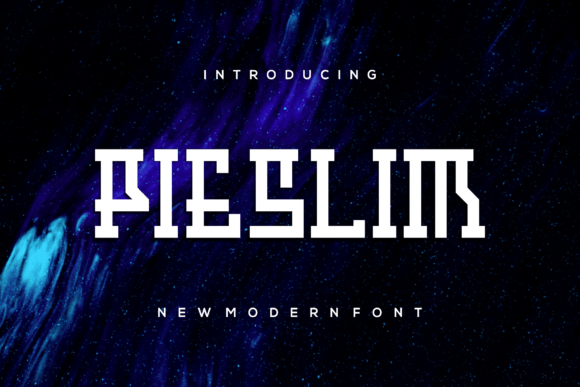
Prepare yourself to dive into the world of futuristic creation with Pieslim Font, the epitome of technological marvel. This display font is not just a collection of letters and symbols; it's a gateway to a universe where your designs transcend the ordinary and enter the realm of the extraordinary.
With its sleek, sharp lines and geometric precision, Pieslim Font is the perfect choice for those who seek to make a bold statement in the digital realm. Its bold strokes and confident angles are reminiscent of towering skyscrapers reaching for the heavens, evoking a sense of power and innovation.
Imagine your tech logo adorned with Pieslim Font, radiating an aura of sophistication and cutting-edge technology. Your audience will be mesmerized by the font's ability to convey a sense of progress, innovation, and boundless possibilities. Whether you're creating a website, designing a mobile app, or crafting social media graphics, Pieslim Font will elevate your designs to new heights.
This modern display font is incredibly versatile, adapting seamlessly to a wide array of creative projects. Its clean and minimalist aesthetic makes it the perfect choice for headlines, titles, and logos, while its sturdy structure ensures legibility even at smaller sizes. Experiment with Pieslim Font in posters, flyers, and brochures, and watch as your words come alive with a life of their own.
But Pieslim Font is more than just a visually stunning font; it's an extension of your brand's identity, a tool to communicate your values and aspirations to the world. Its sharp edges and geometric precision convey a sense of professionalism and trustworthiness, making it ideal for businesses and organizations that want to project an image of stability and reliability.
Don't settle for ordinary fonts that blend into the background. Embrace the power of Pieslim Font and unleash your creativity. Let your designs soar to new heights, capturing the attention of your audience and leaving an indelible mark on their minds. Step into the future of design with Pieslim Font and witness the transformation of your creative vision into a tangible reality.